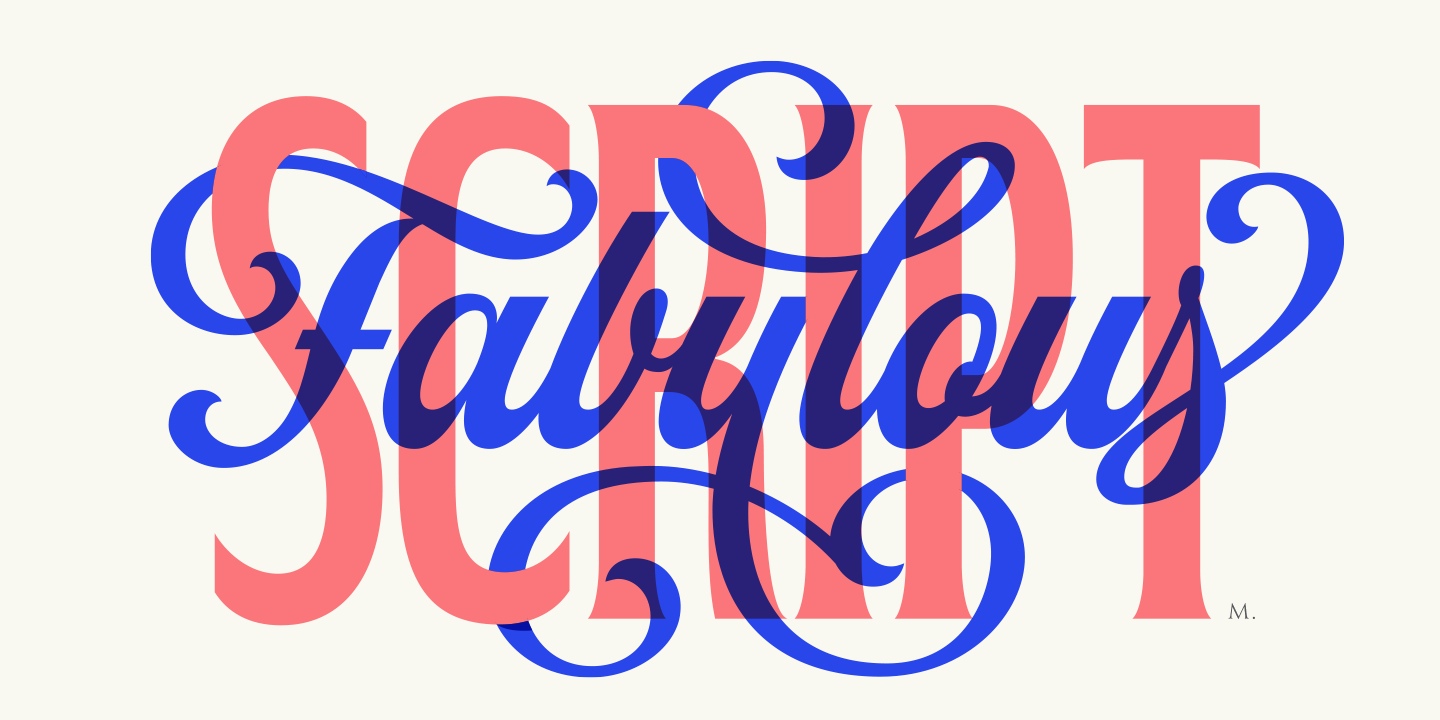
Fabulous Script Font
Fabulous Script Font is perfect for glamorous fashion campaigns, celebrity event invitations, red carpet experience branding, luxury lifestyle magazines, high-end beauty product packaging, fabulous party promotions, VIP entertainment venues, exclusive club signage, dazzling awards ceremonies, and spectacular celebration materials. This dazzling typeface brings star-quality glamour and fabulous sophistication to any high-end design project.
Fabulous Script Font is exciting because it captures the sparkling glamour and irresistible charm that makes everything absolutely fabulous, featuring flowing script letterforms that shimmer with star quality and convey the confidence, style, and magnetic personality that defines truly fabulous experiences. Its glamorous character instantly elevates any design to celebrity status and red carpet elegance.
Fabulous Script Font family includes Regular and Bold weights with glamorous alternates, sparkling swashes, dazzling flourishes, and fabulous ornamental elements that enhance the star-quality aesthetic, providing luxury designers with spectacular tools for creating typography that celebrates the fabulous lifestyle and brings red carpet glamour to every application.
Celebrity lifestyle designers love Fabulous Script Font for its exceptional ability to convey glamorous sophistication and fabulous energy through dramatically crafted letterforms. The font's sparkling character and star-quality details create immediate associations with red carpet events, celebrity lifestyle, and the fabulous confidence that makes every moment feel like a glamorous celebration worth remembering.
The design philosophy behind Fabulous Script Font celebrates the transformative power of glamour and the fabulous confidence that comes from embracing one's inner star, making it particularly effective for luxury entertainment, celebrity services, and lifestyle brands that help people feel absolutely fabulous in their most glamorous moments. Event teams working on spectacular celebrations find this font essential.
Whether used for celebrity events, luxury fashion shows, or fabulous lifestyle campaigns, Fabulous Script Font delivers the perfect combination of glamorous sophistication and star-quality fabulousness. Its dazzling appeal and celebrity charm make it an indispensable choice for brands that celebrate the fabulous lifestyle, red carpet glamour, and the sparkling confidence that makes every moment absolutely fabulous.